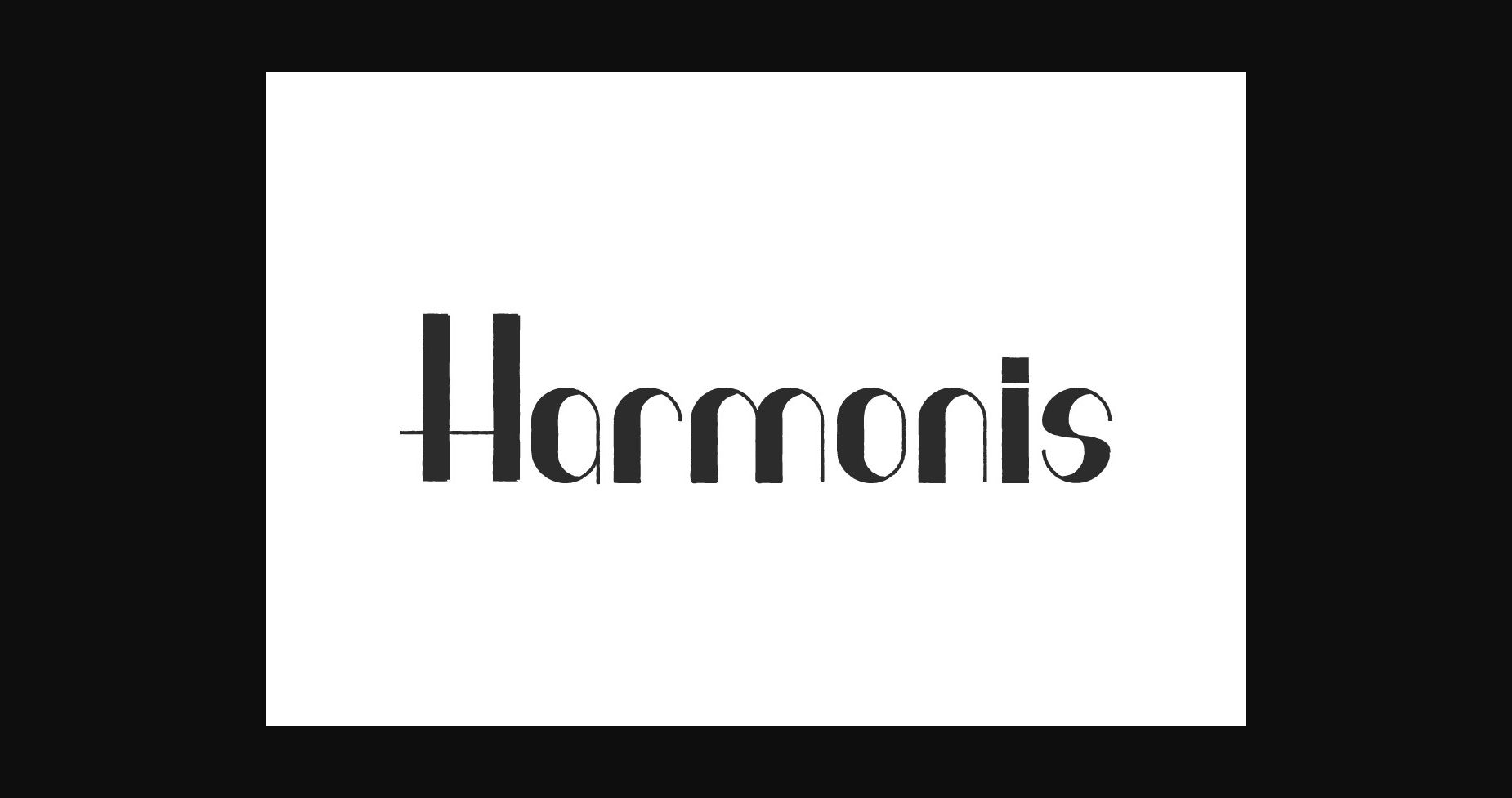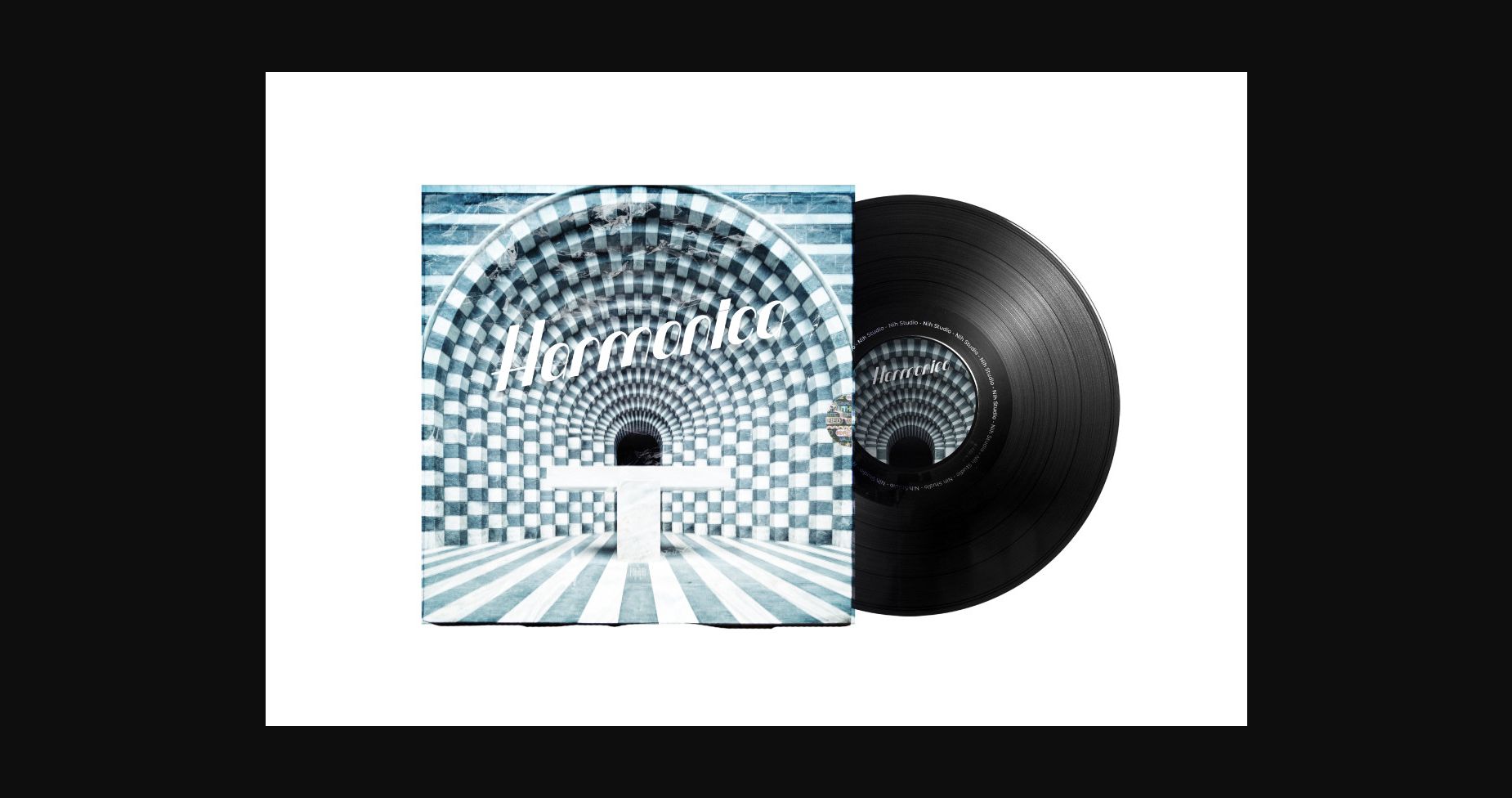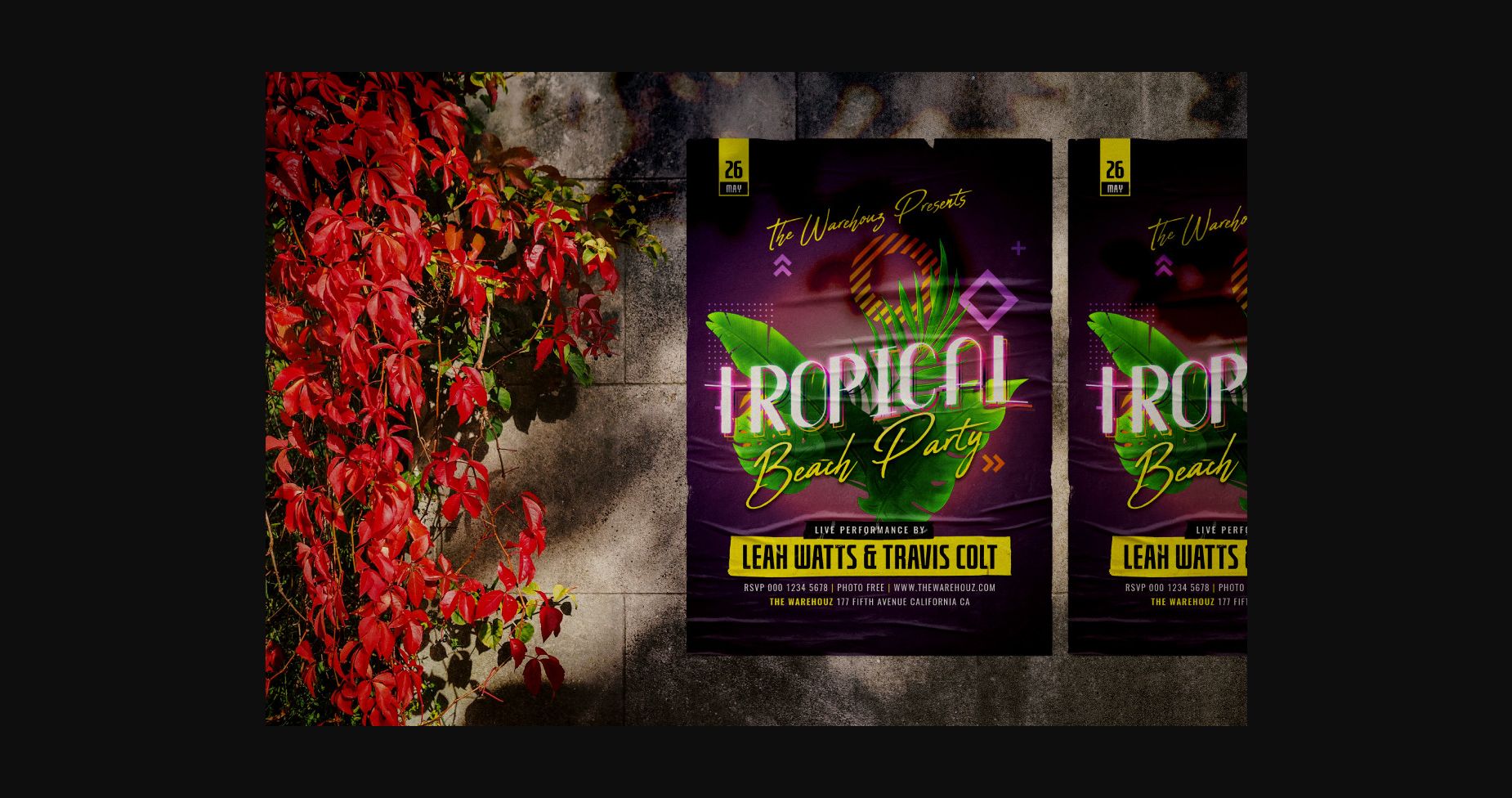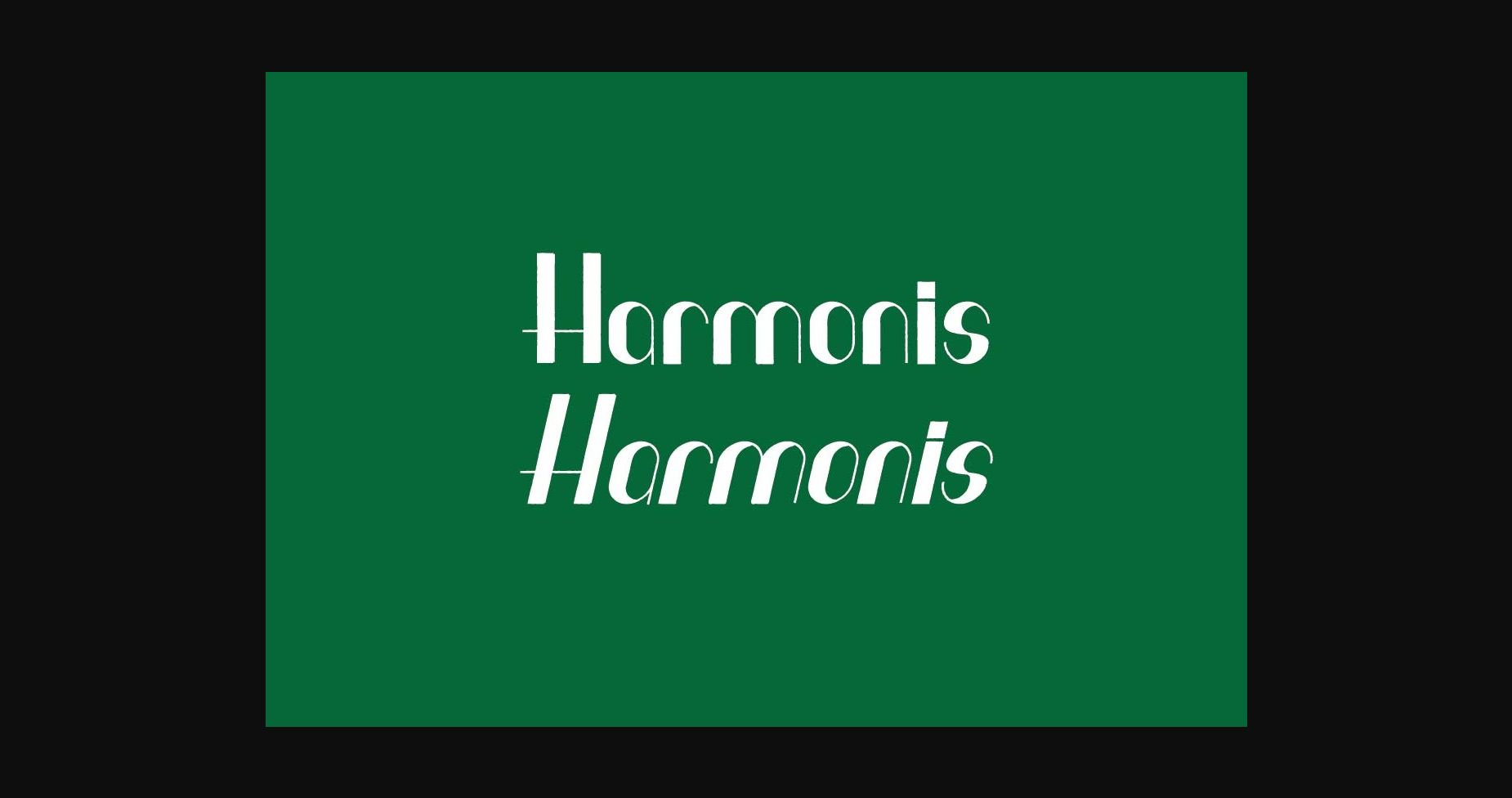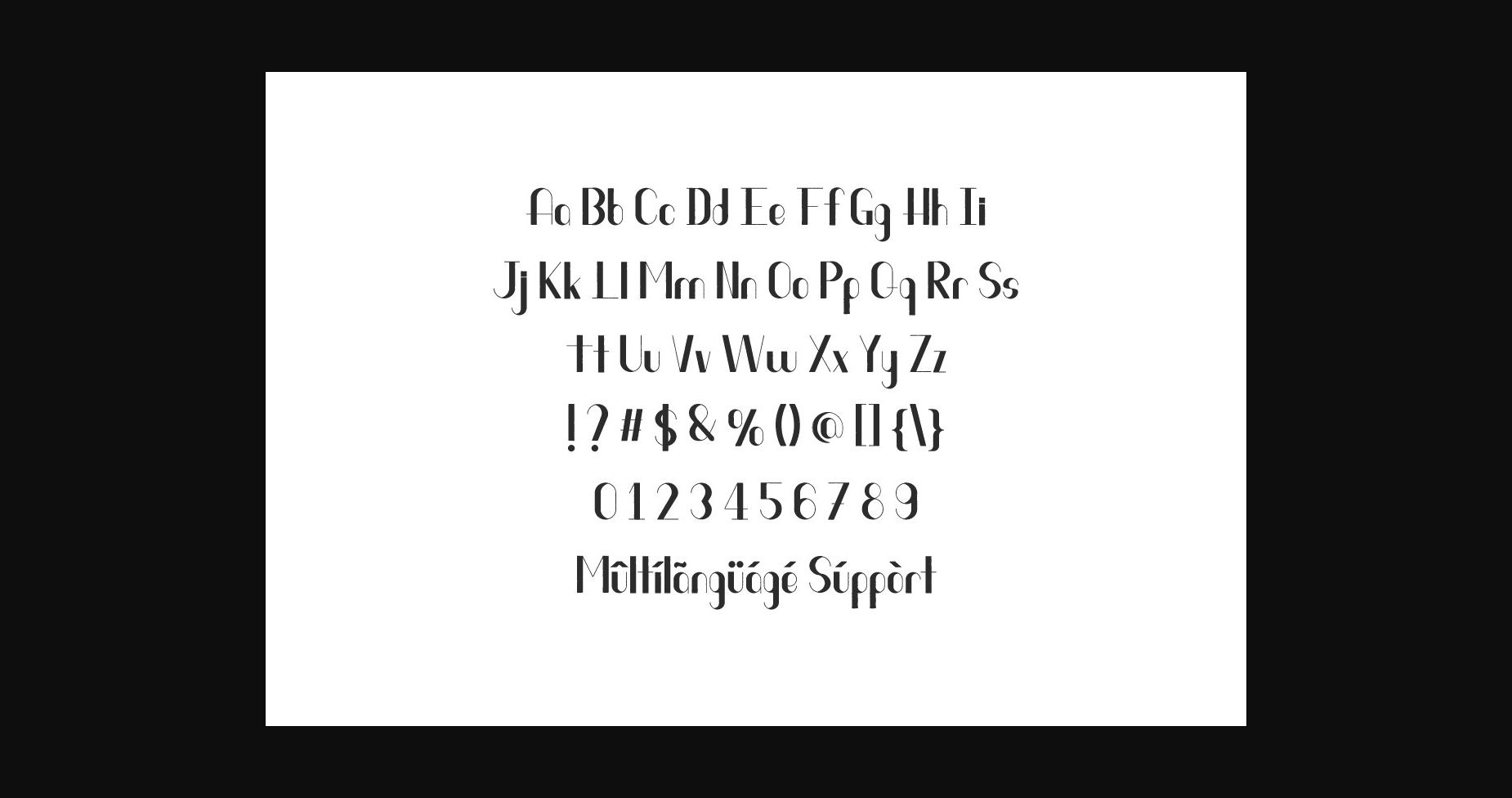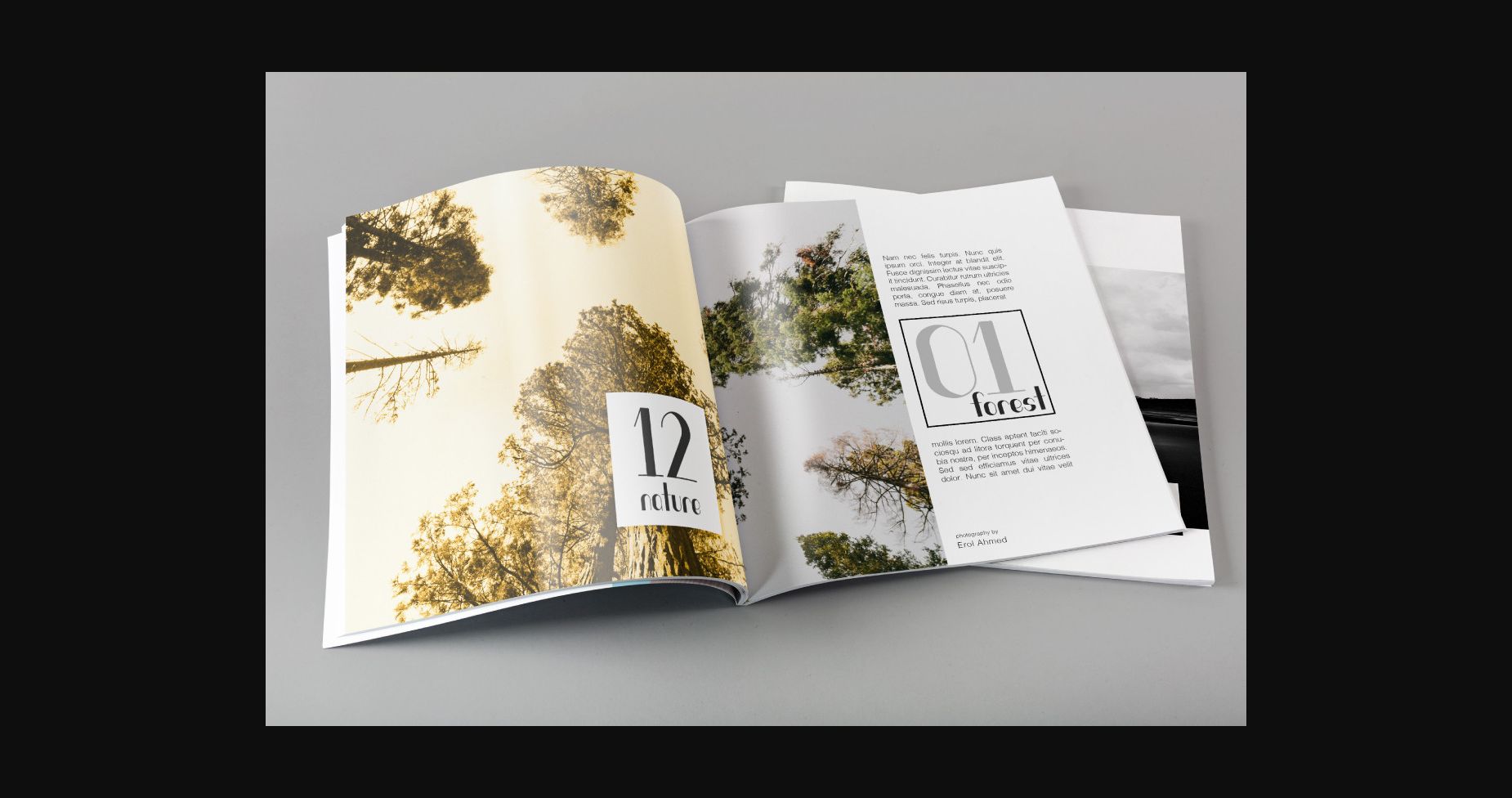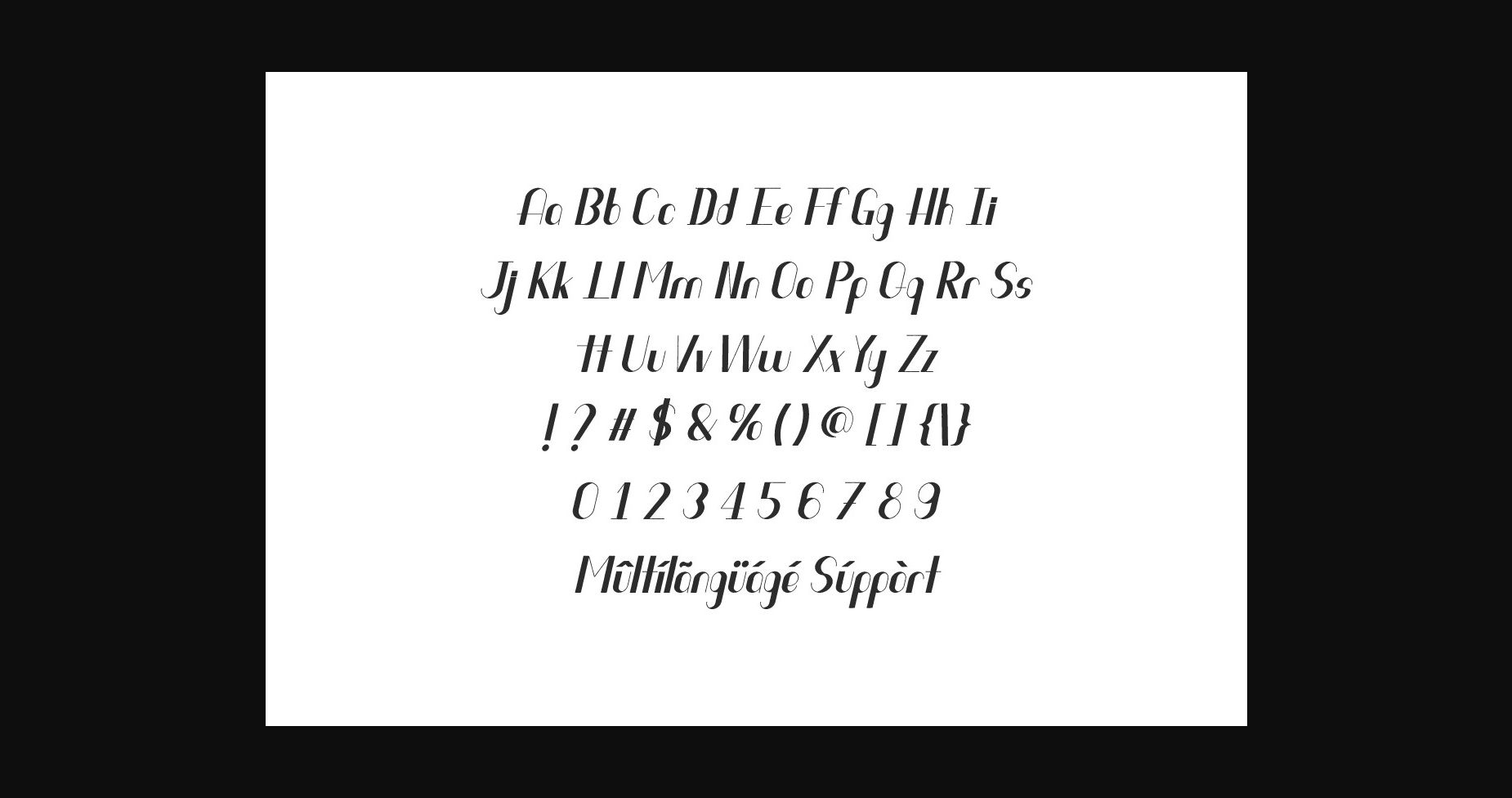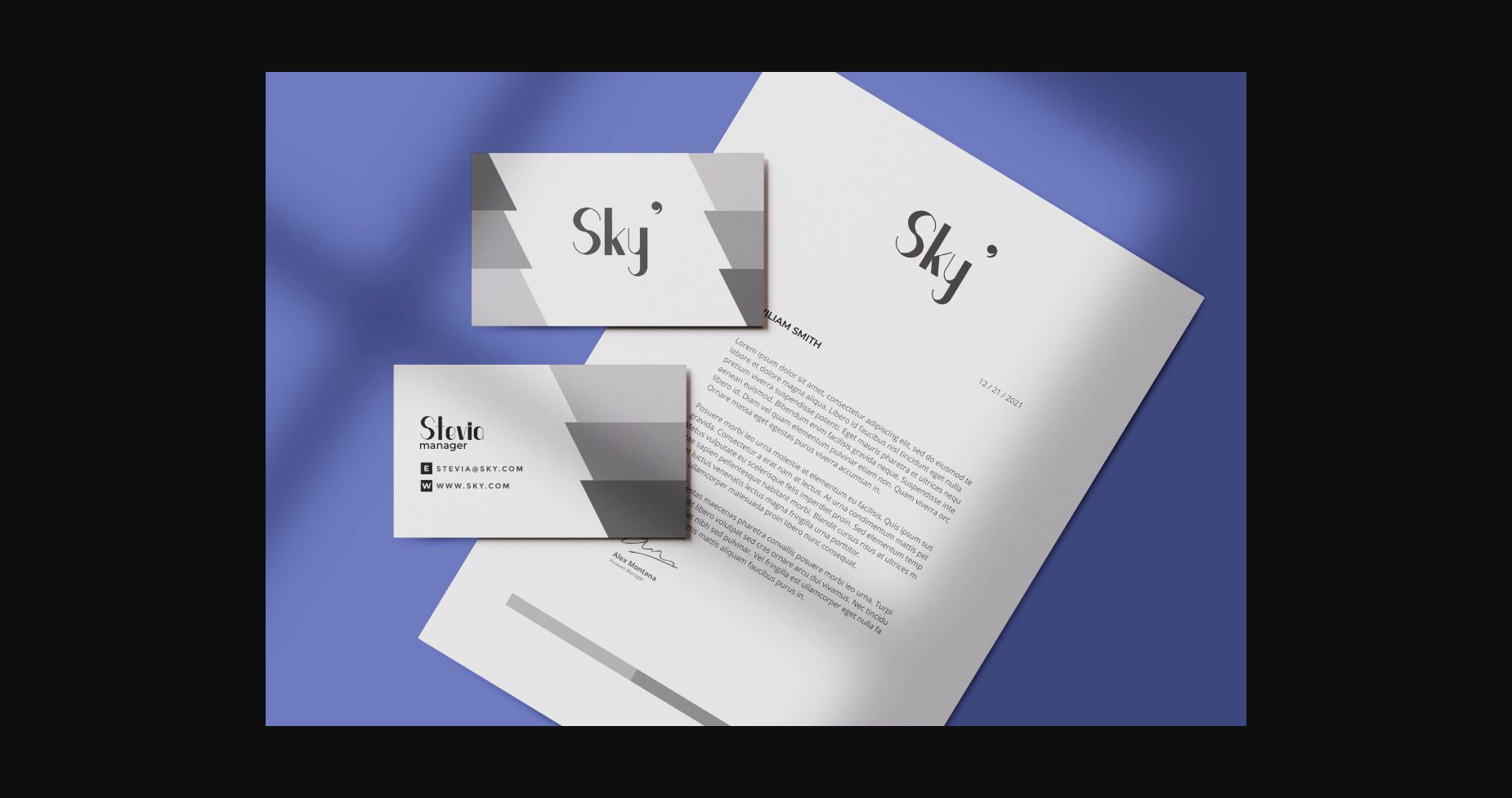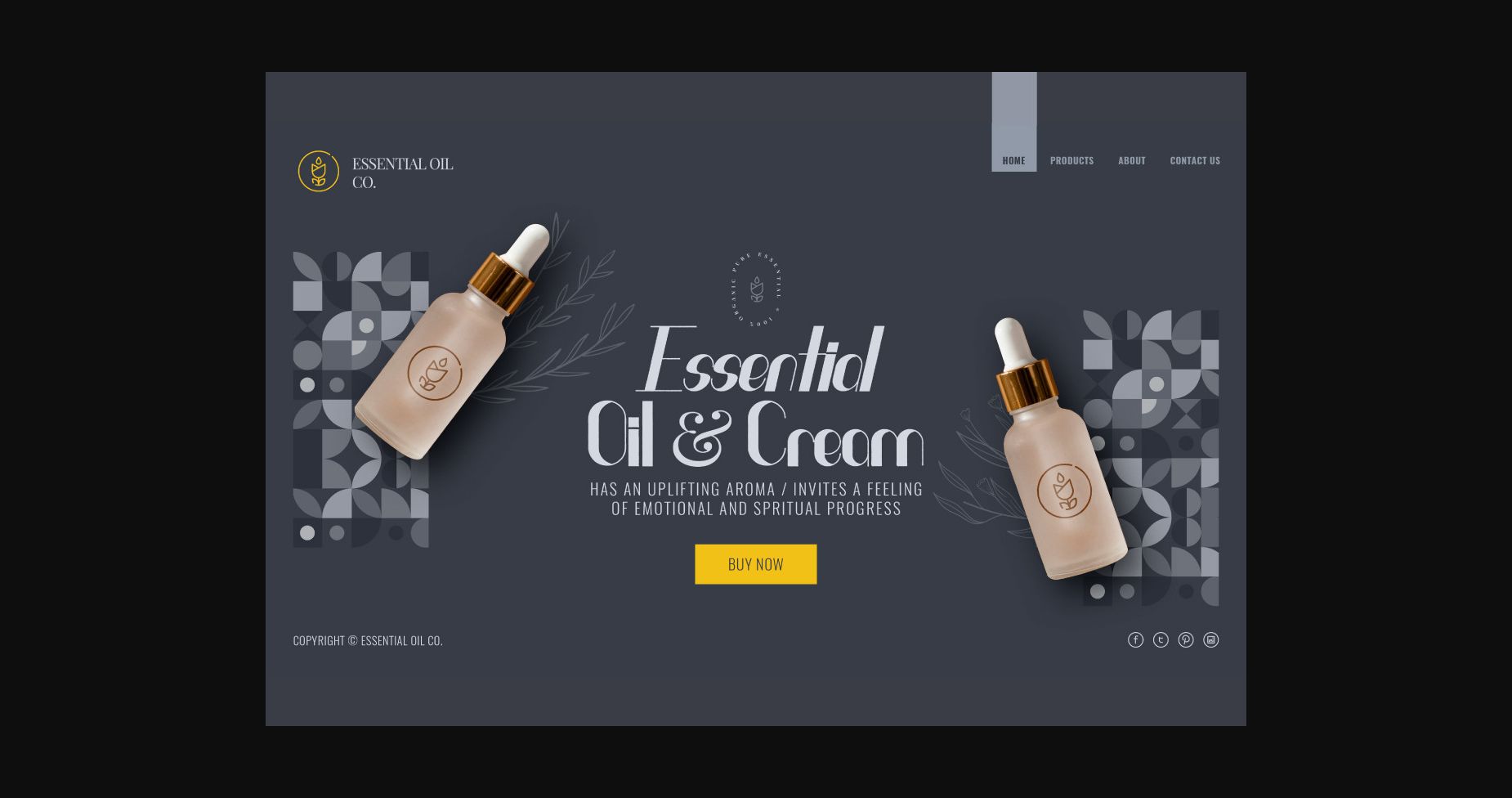
Harmonis is a unique and elegant sans serif font featuring unique characters and a neat, stylish vibe. Use it for magazine titles, storybooks, fashion branding, marketing materials, adverts, and so much more!